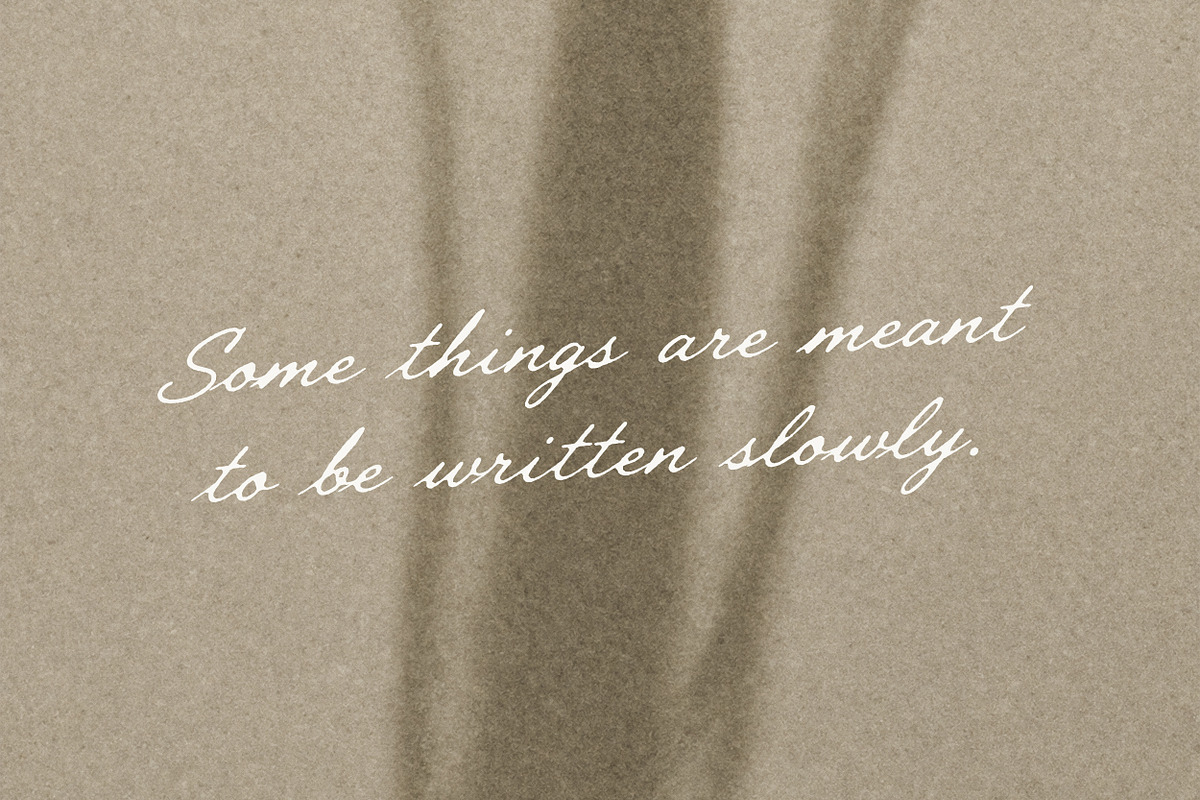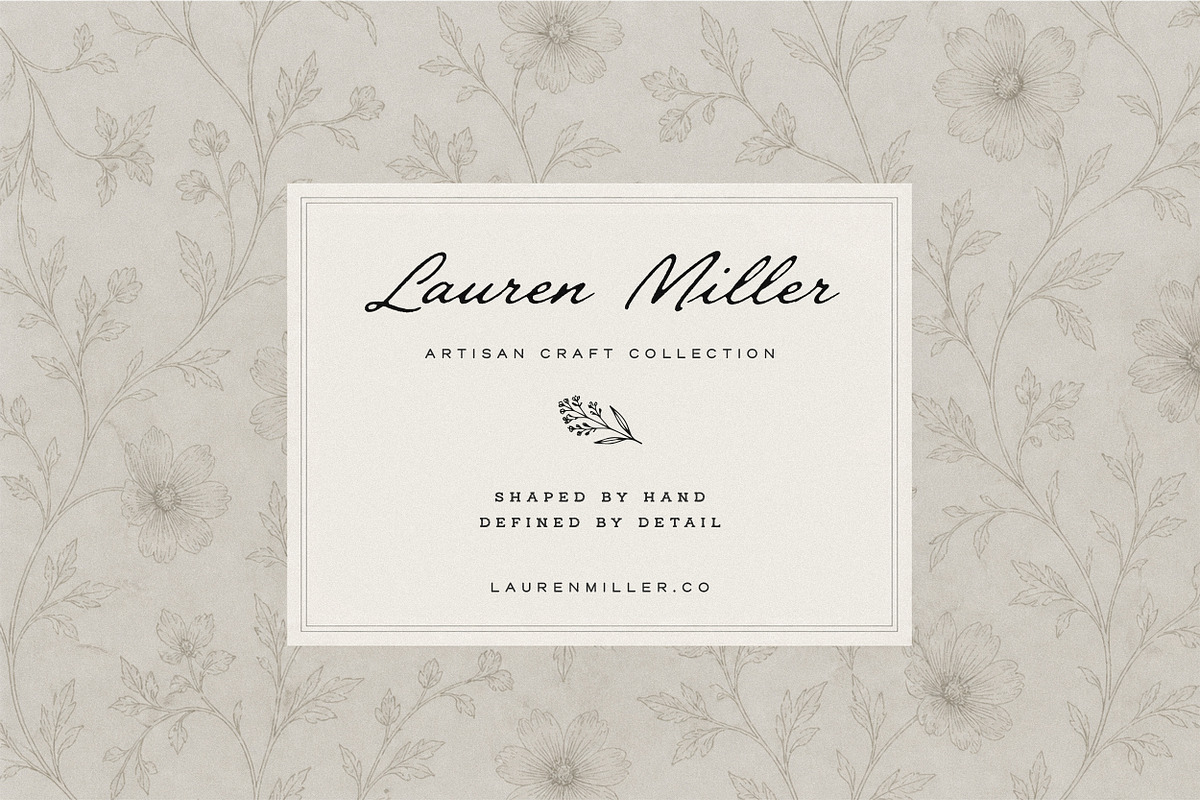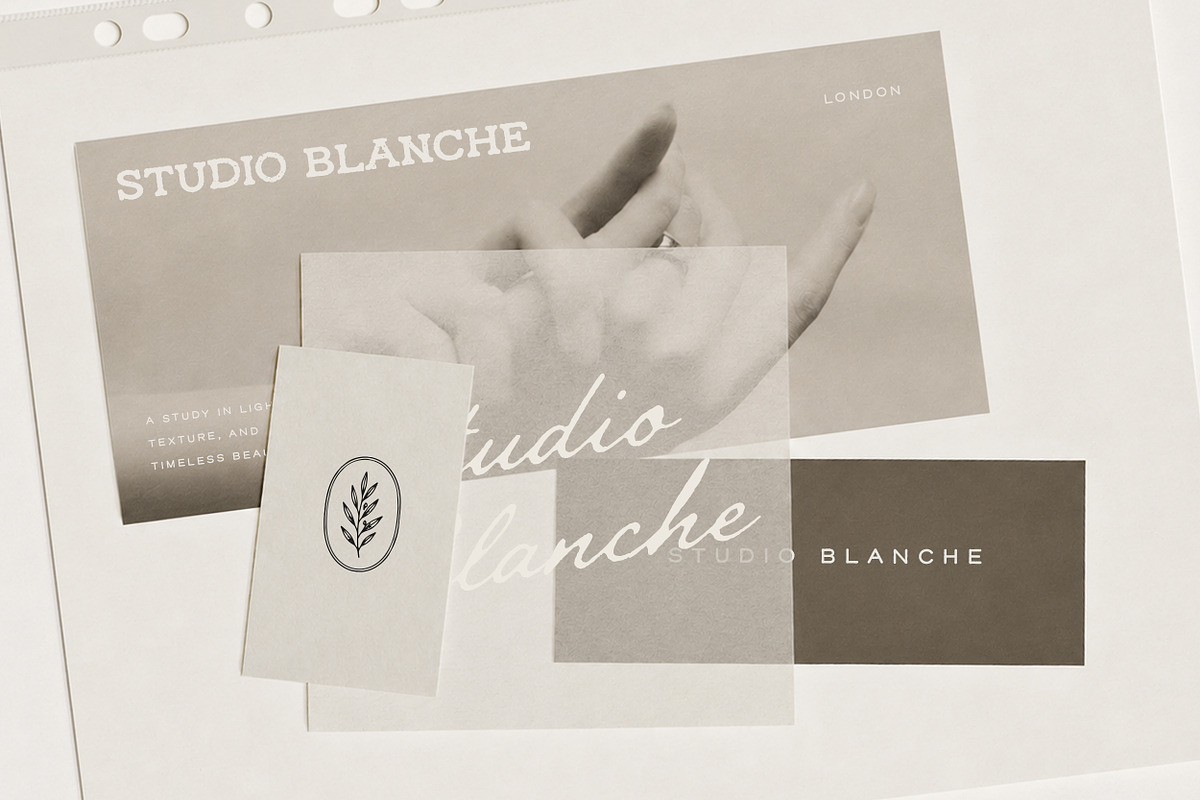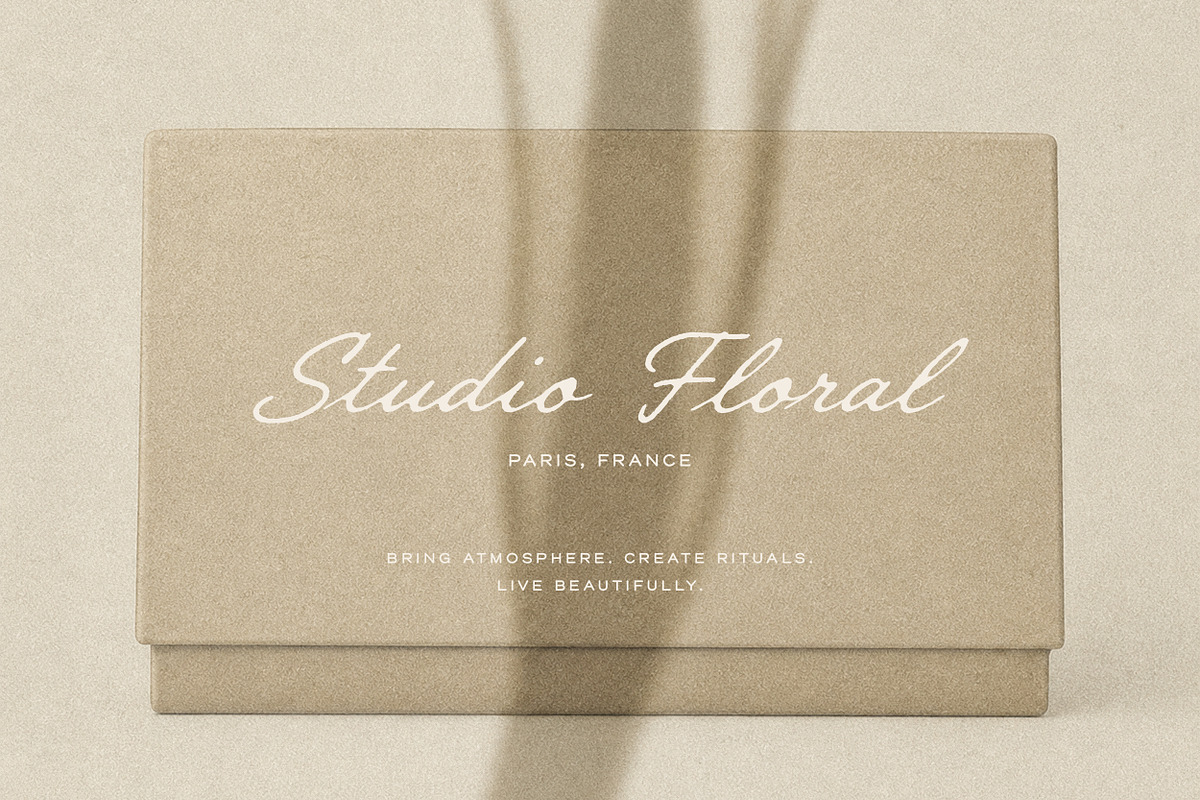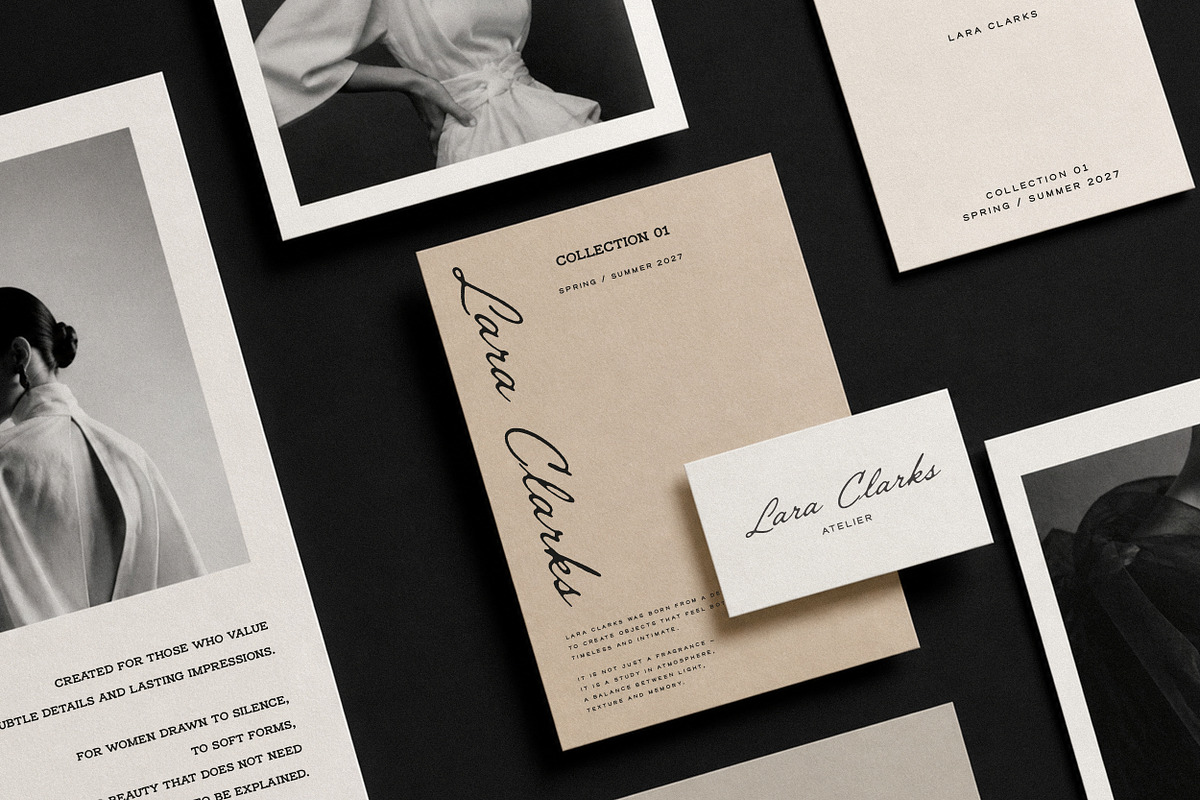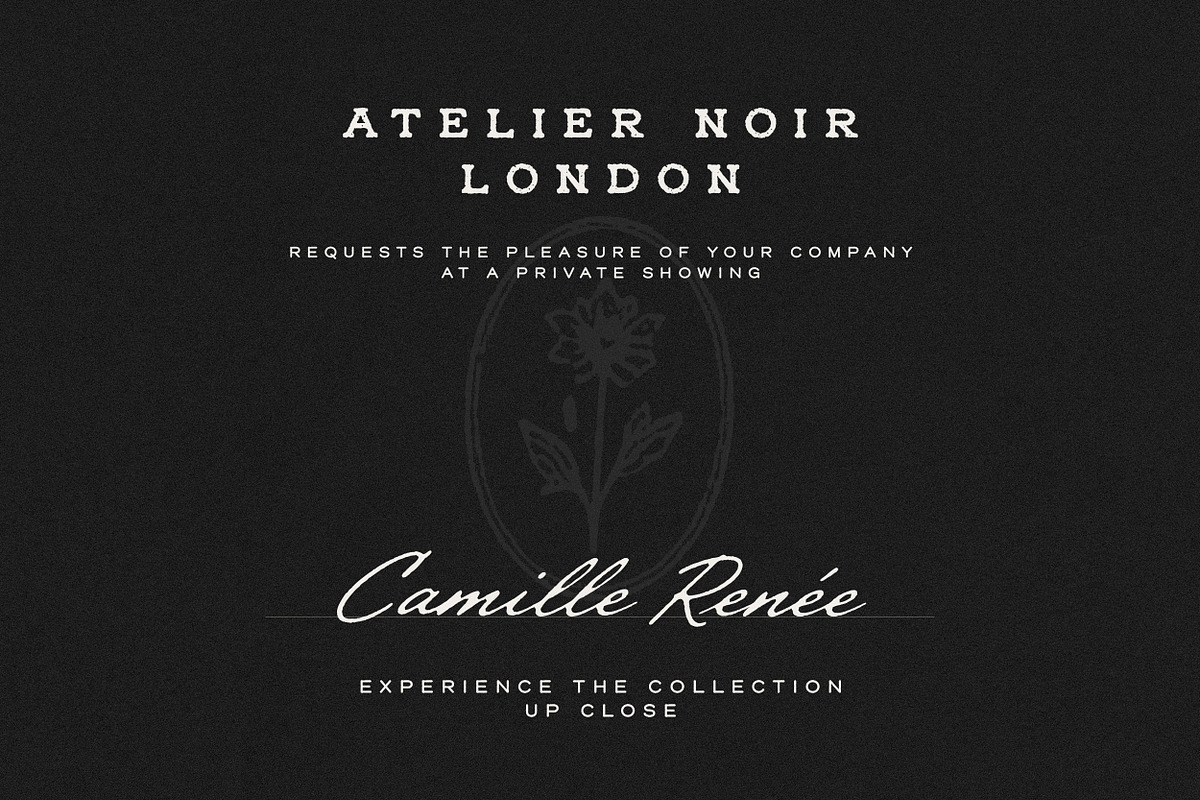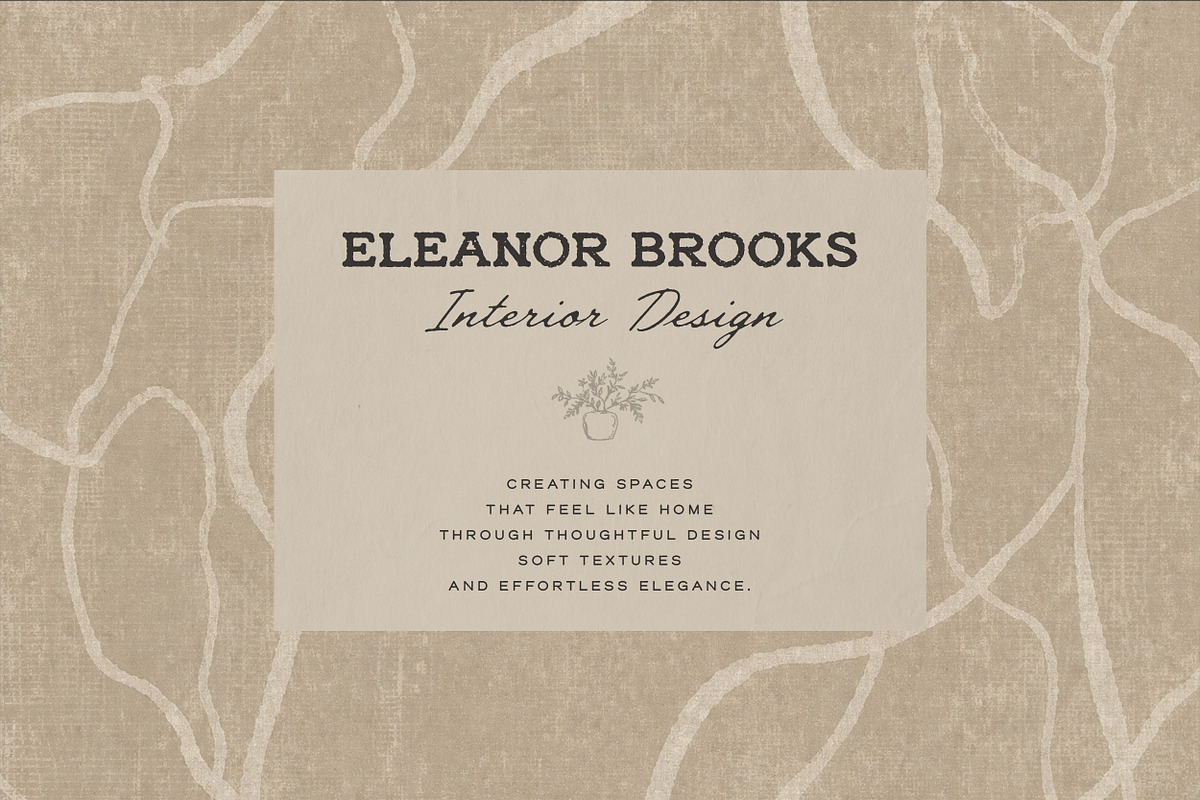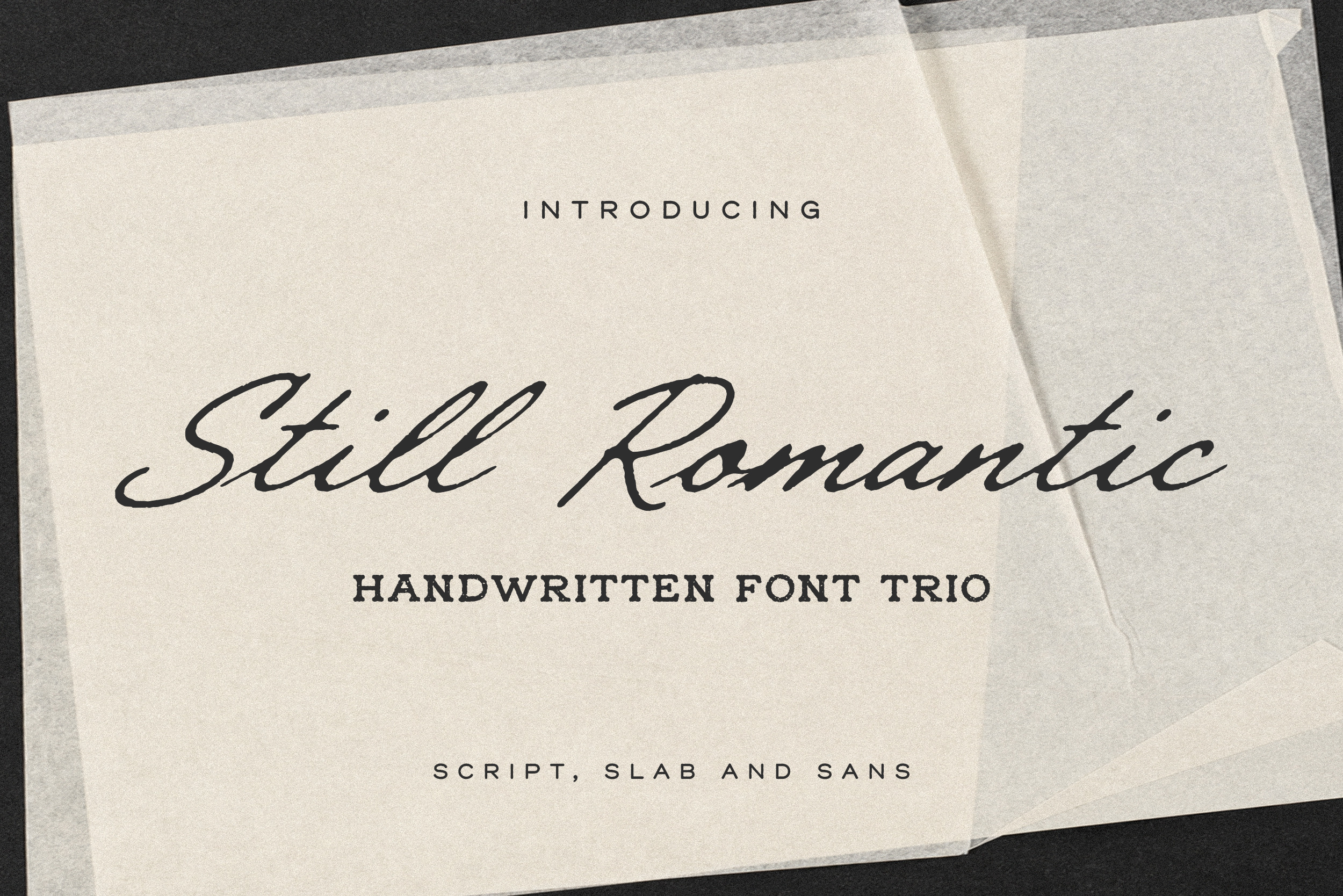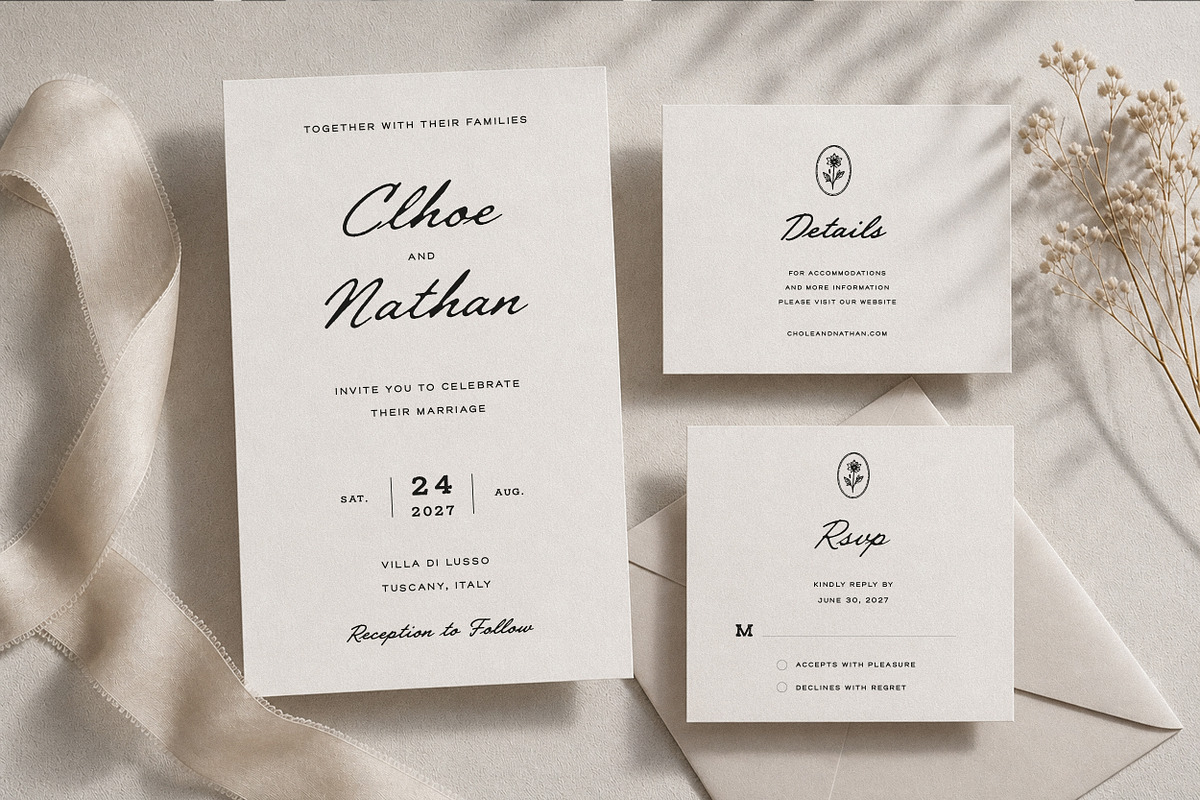
Still Romantic - Font Trio
Still Romantic is a handwritten font trio built around contrast and balance. It combines a natural script with a structured slab serif and a clean sans serif, giving you everything you need to create refined, modern layouts.
The script is the core of the collection, with 6 styles included: Light, Regular, Bold, plus Light Oblique, Regular Oblique, and Bold Oblique. This gives you real flexibility when working on branding, layouts, or editorial pieces—whether you need something soft and subtle or more defined and bold.
The slab adds character and structure, while the sans keeps everything clean and readable. Together, they’re designed to work effortlessly across different types of projects.
You can use them for logos, packaging, wedding stationery, social content, or full brand identities—especially if you're going for a look that feels elegant but still natural and not over-designed.
What’s inside:
Script with 6 styles (Light, Regular, Bold + Oblique versions)
Slab serif
Sans serif
A simple system that lets you mix styles easily and build consistent designs without overthinking it.